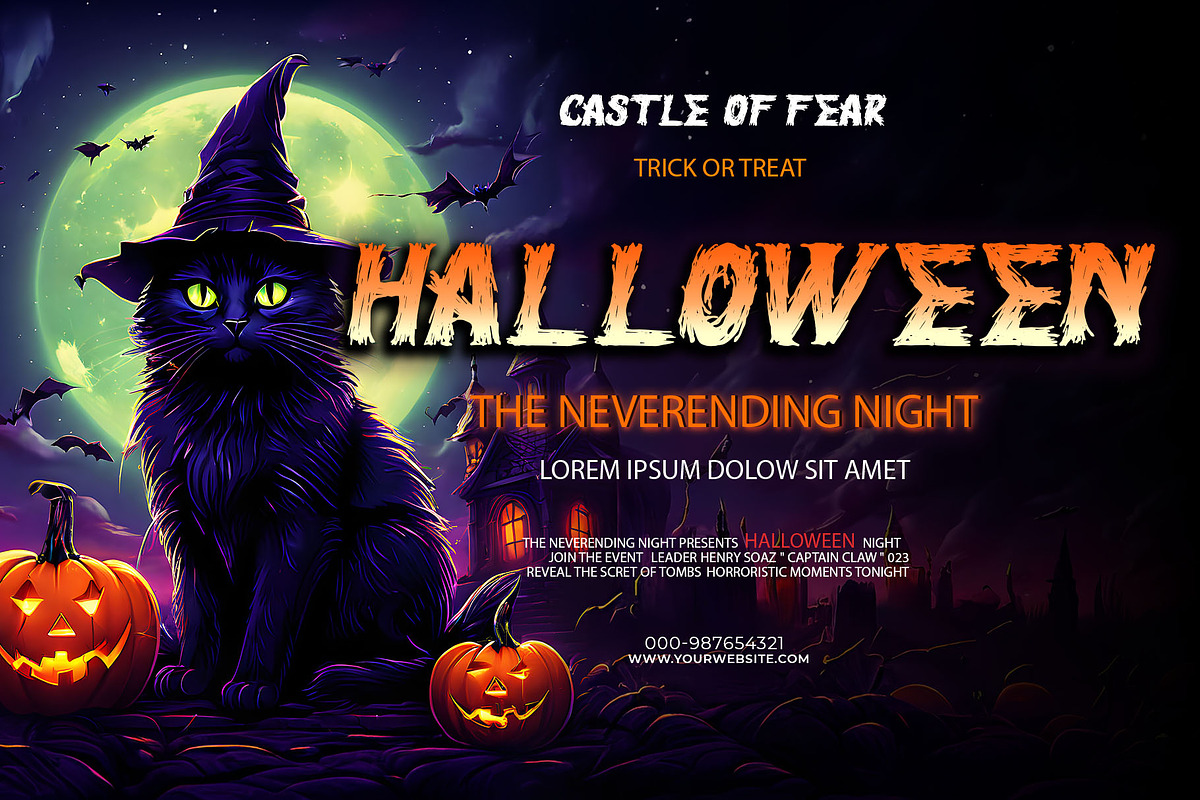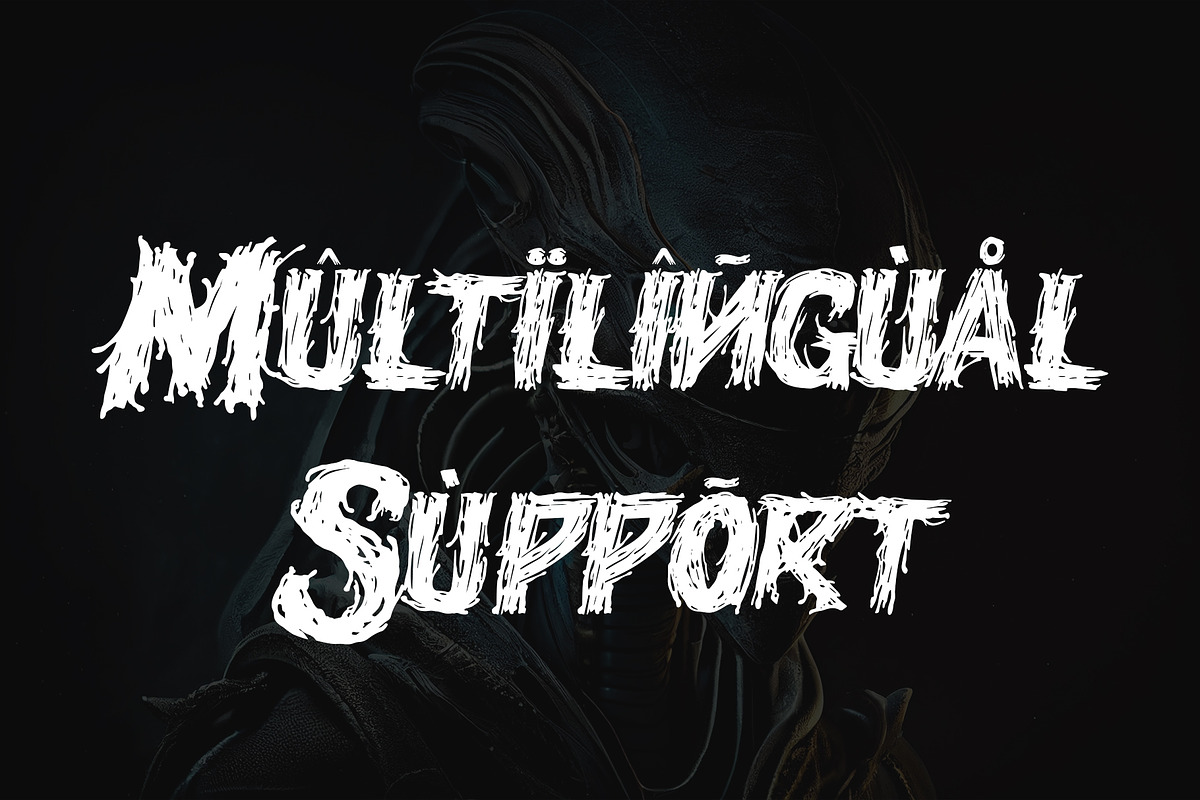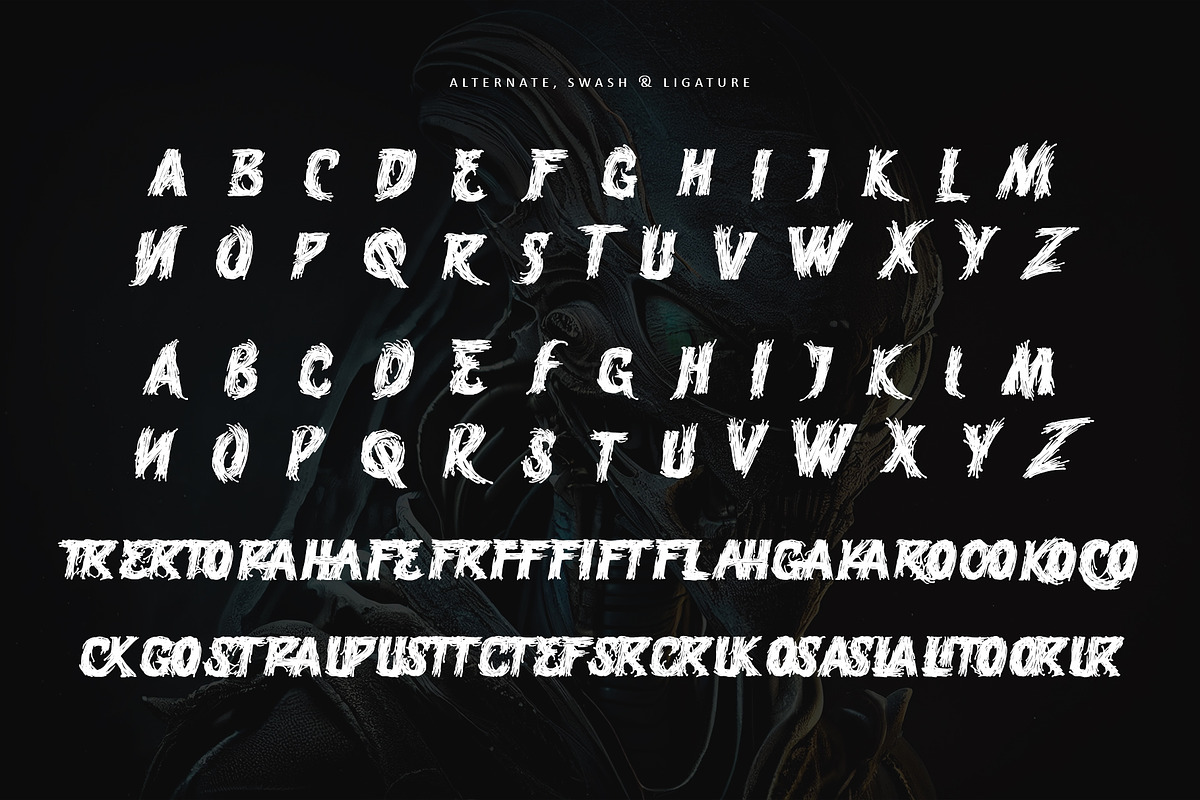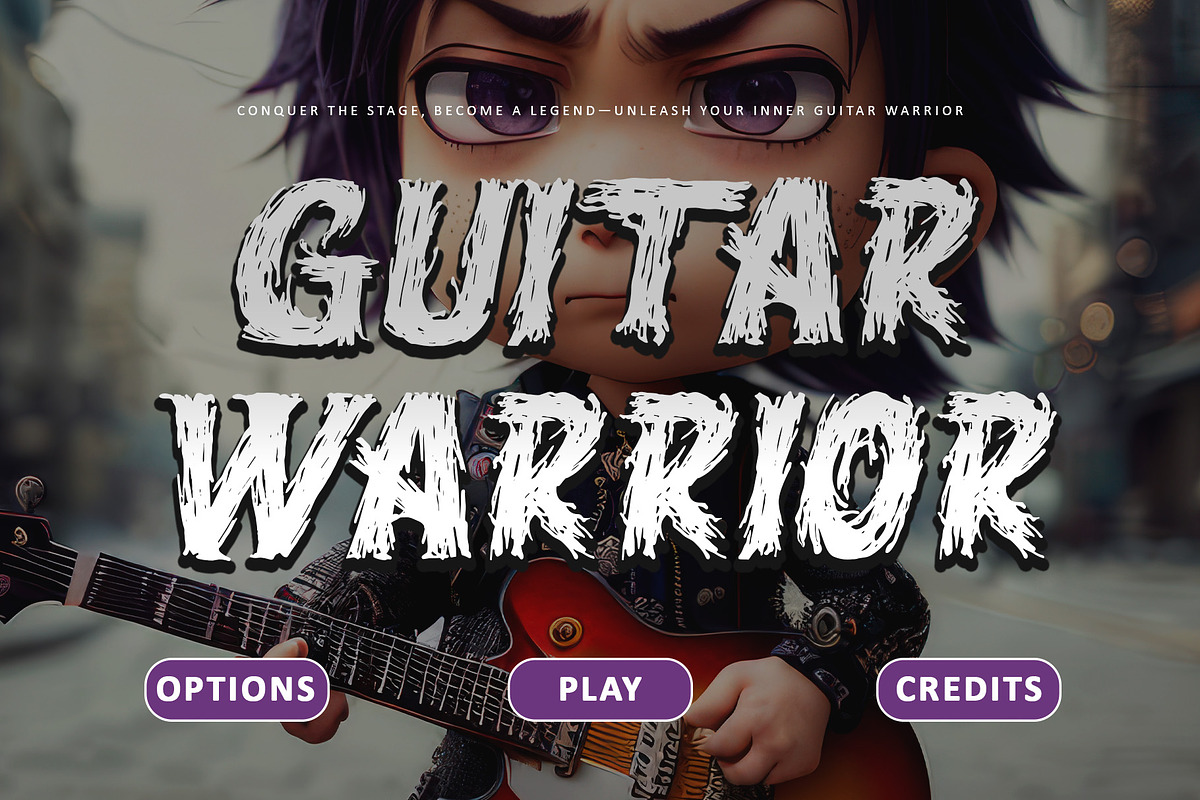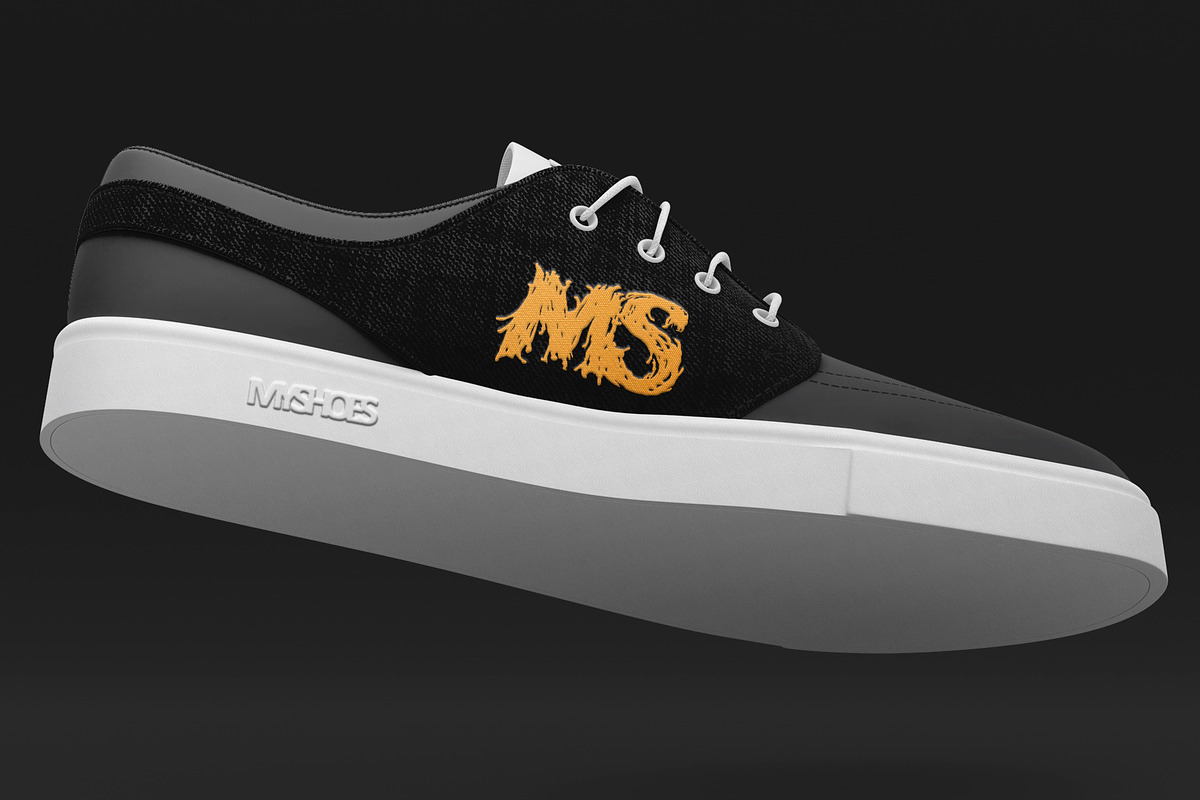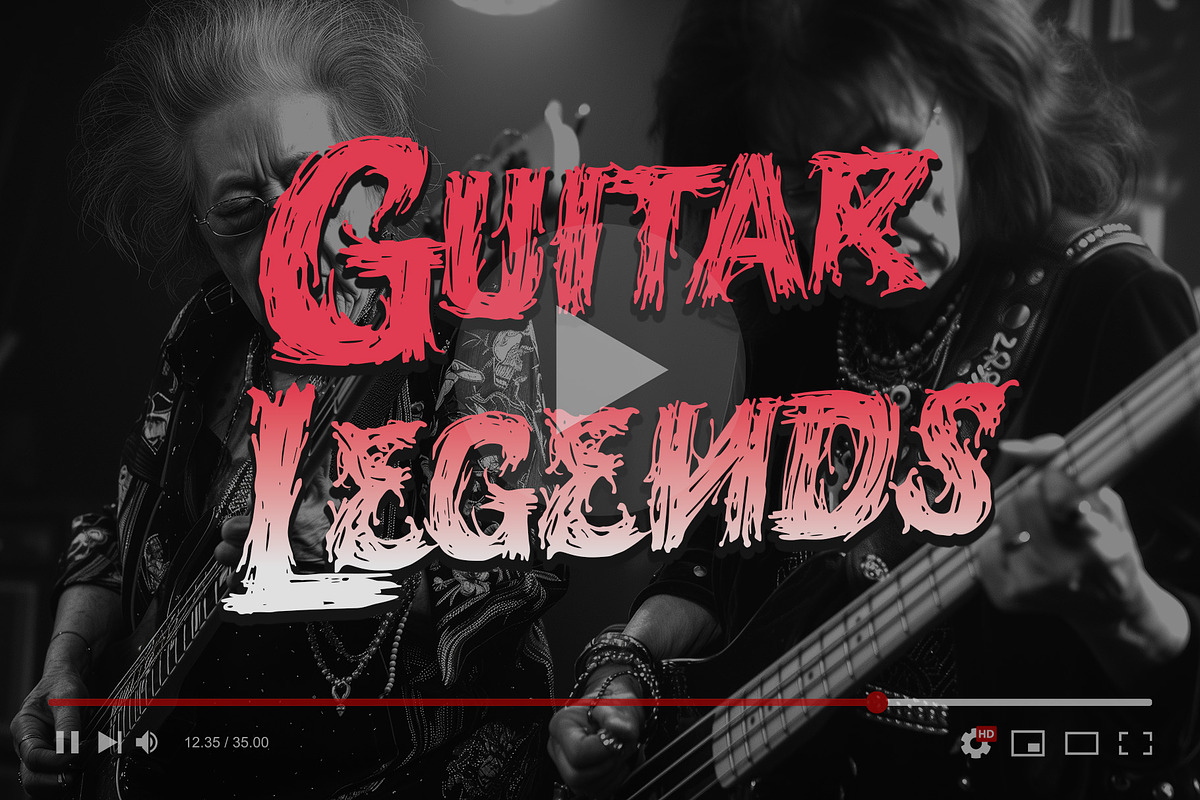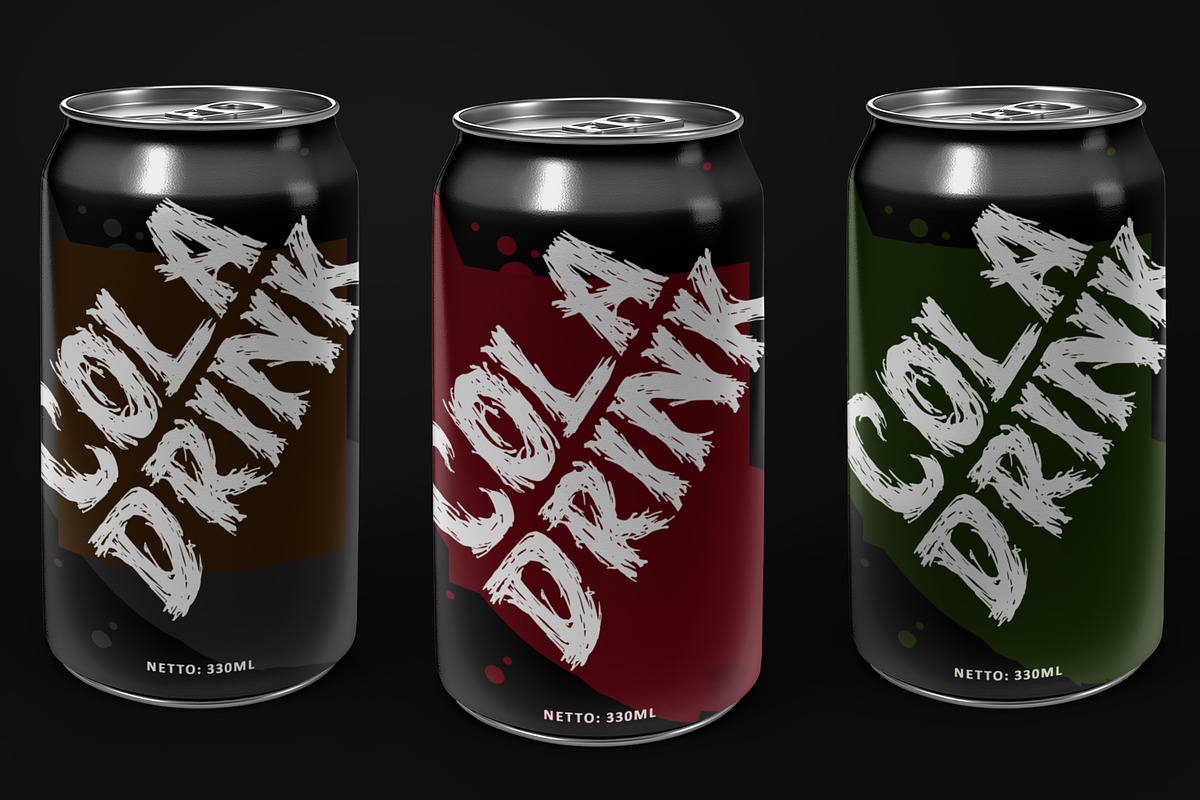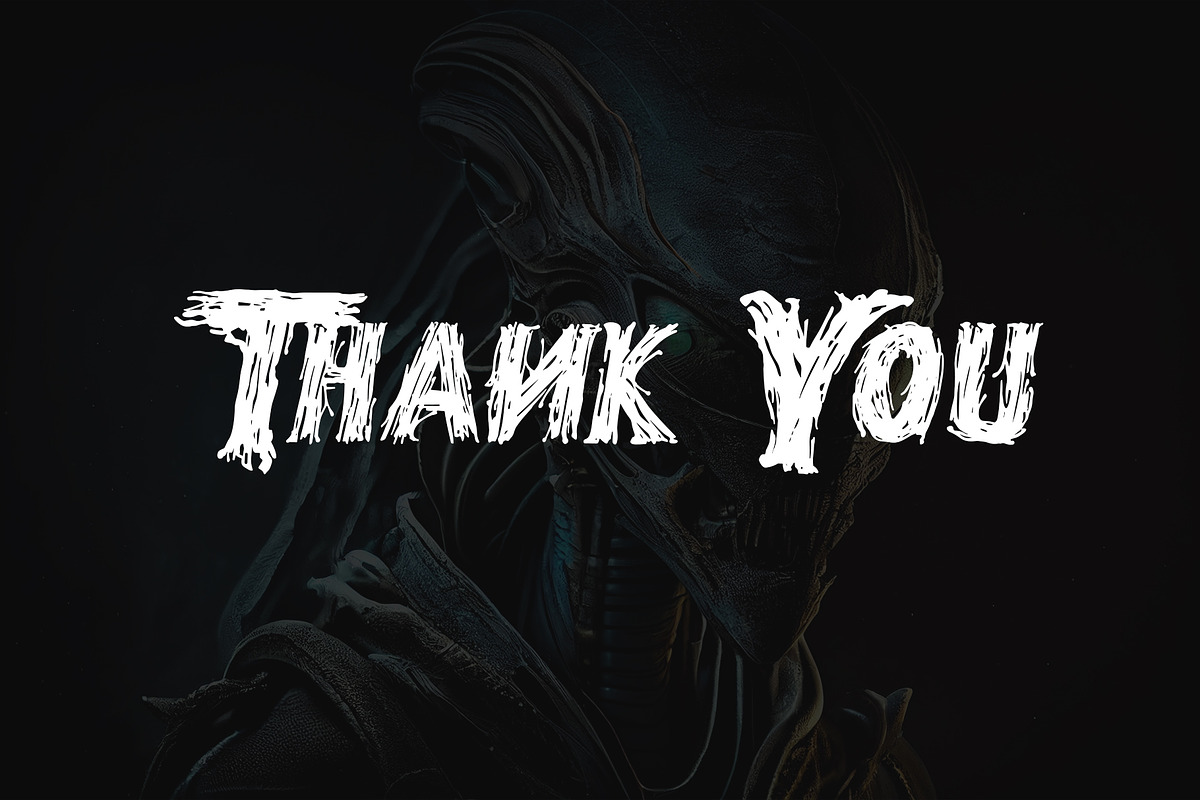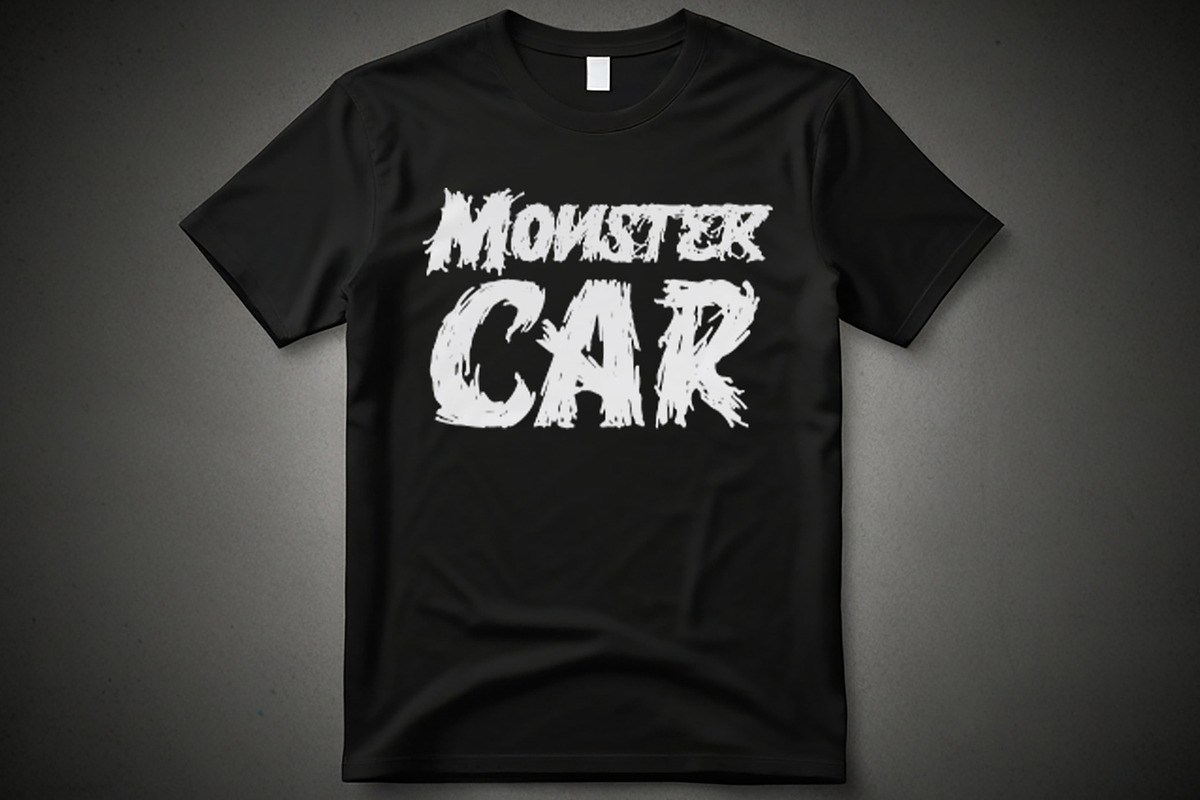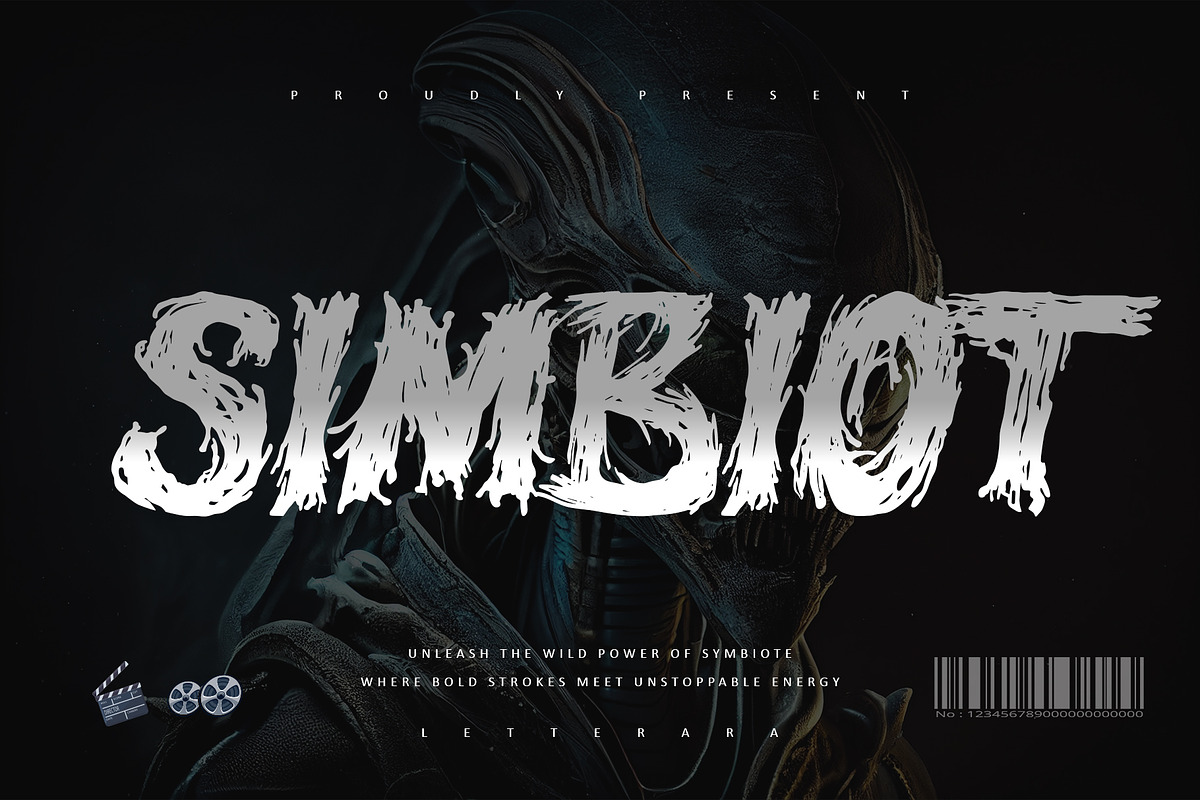
Simbiot
Introducing Simbiot, a bold brush script font that pulses with raw energy and untamed style. Crafted to capture the essence of powerful strokes and thick textures, Simbiot brings a vibrant, daring edge to your designs. Whether you’re creating logos, posters, packaging, or any project that demands attention, this font delivers a striking impact with every letter. Its fluid motion and dynamic glyphs breathe life into your work, making each piece resonate with intensity and flair. With PUA encoding for effortless access to its unique features, Simbiot is your go-to choice for adding bold character and unstoppable energy to your creative projects.
- Support multilingual; ä ö ü Ä Ö Ü ß ¿ ¡
- lowercase and uppercase letters
- Ligature, alternate, and swash